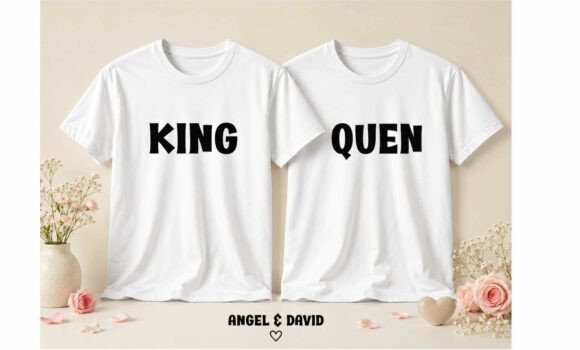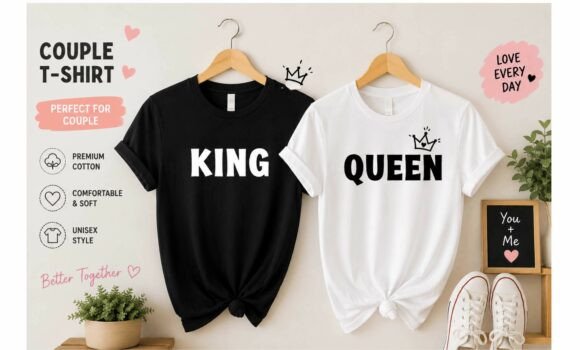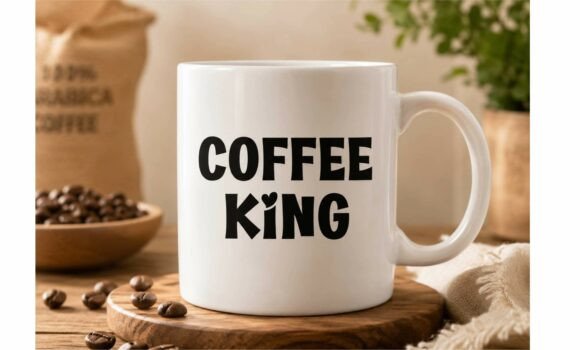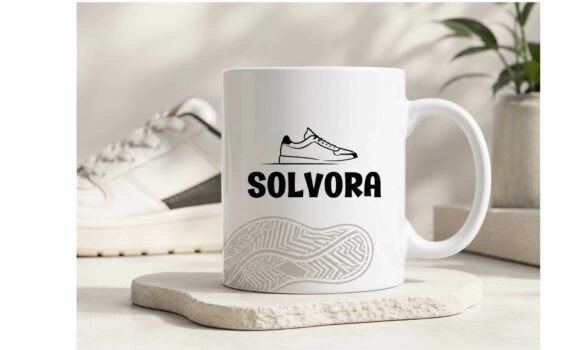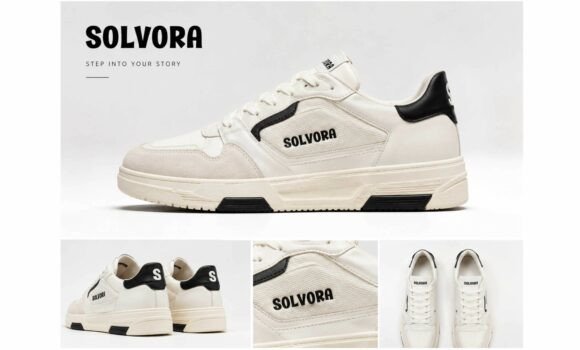
Candy Girls Font: The Sweetest Display Font for Your Fun and Colorful Projects
Are you looking for a font that can add a touch of sweetness and playfulness to your designs? Look no further than Candy Girls Font! This bold and cheerful display font is perfect for creating fun and colorful projects that are sure to capture the attention of your audience. In this article, we’ll take a closer look at the features and benefits of Candy Girls Font, and explore the many ways you can use it to enhance your designs.
What is Candy Girls Font?
Candy Girls Cute Display Font is a bold and cheerful display font with a sweet, playful, and fun character. Its chunky letter shape makes every design look cute, bright, and eye-catching. This font is perfect for adding a touch of whimsy and fun to your designs, and is sure to make your projects stand out.
Features of Candy Girls Font
Candy Girls Font has a number of features that make it perfect for a wide range of design projects. Some of its key features include:
- Bold and Cheerful Design: Candy Girls Font has a bold and cheerful design that is sure to capture the attention of your audience.
- Chunky Letter Shape: The chunky letter shape of Candy Girls Font makes every design look cute, bright, and eye-catching.
- Sweet and Playful Character: Candy Girls Font has a sweet and playful character that is perfect for adding a touch of fun to your designs.
- Easy to Read: Despite its bold and chunky design, Candy Girls Font is easy to read, making it perfect for use in a wide range of design projects.
Uses for Candy Girls Font
Candy Girls Font is a versatile font that can be used in a wide range of design projects. Some of the many uses for Candy Girls Font include:
- Kids’ Designs: Candy Girls Font is perfect for use in kids’ designs, such as children’s books, nursery decor, and kids’ clothing.
- Candy Branding: The sweet and playful character of Candy Girls Font makes it perfect for use in candy branding, such as logos, packaging, and advertising.
- Birthday Invitations: Candy Girls Font is a great choice for birthday invitations, adding a touch of fun and whimsy to your party invites.
- Stickers and Posters: The bold and cheerful design of Candy Girls Font makes it perfect for use in stickers and posters.
- T-Shirt Designs: Candy Girls Font is a great choice for t-shirt designs, adding a touch of fun and personality to your apparel.
- Mugs and Packaging: Candy Girls Font can also be used in mugs, packaging, and other promotional products.
- Logos and Social Media Posts: The versatile design of Candy Girls Font makes it perfect for use in logos and social media posts.
- Craft Projects: Candy Girls Font is also a great choice for craft projects, such as scrapbooking, card making, and other DIY projects.
Who is Candy Girls Font for?
Candy Girls Font is perfect for a wide range of designers and crafters, including:
- Designers: Candy Girls Font is a great choice for designers who want to add a touch of fun and whimsy to their designs.
- Crafters: The sweet and playful character of Candy Girls Font makes it perfect for use in a wide range of craft projects.
- Small Business Owners: Candy Girls Font is a great choice for small business owners who want to add a touch of personality to their branding and marketing materials.
- Creative Sellers: The bold and cheerful design of Candy Girls Font makes it perfect for use in creative projects, such as handmade products and DIY crafts.
In conclusion, Candy Girls Font is a bold and cheerful display font that is perfect for adding a touch of fun and whimsy to your designs. With its chunky letter shape and sweet, playful character, Candy Girls Font is sure to make your projects stand out. Whether you’re a designer, crafter, small business owner, or creative seller, Candy Girls Font is a great choice for a wide range of design projects.